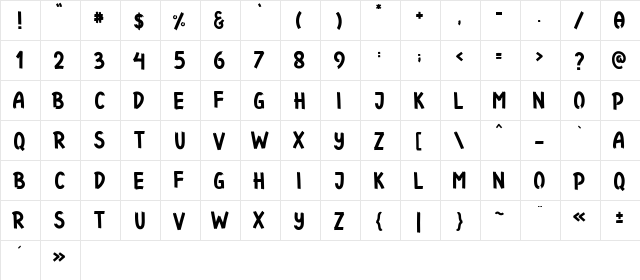
Funbold Regular
Design Context for Funbold Typeface
Funbold has an approachable, lighthearted character — its loose, expressive forms are well-suited to children's content, casual branding, and fun-first design.
Font Pairing: Pairs well with a rounded or humanist sans for body copy, maintaining the friendly tone without relying on Funbold to carry extended reading.
Pro Tip: Avoid using Funbold for long passages of text — it works best for headlines, labels, and short calls to action.